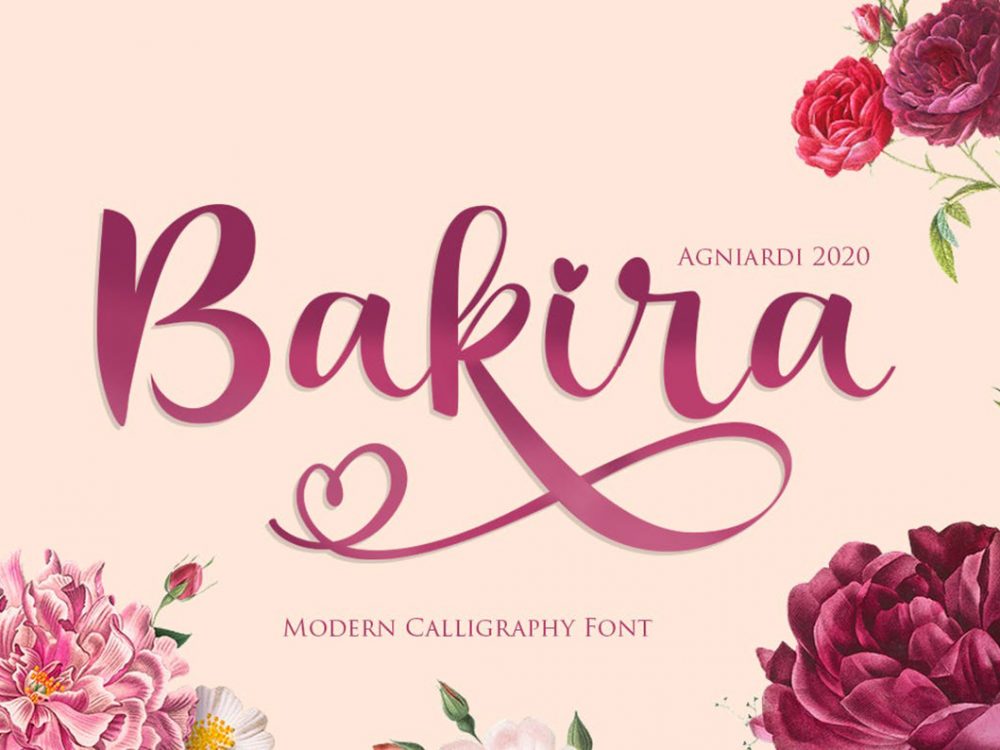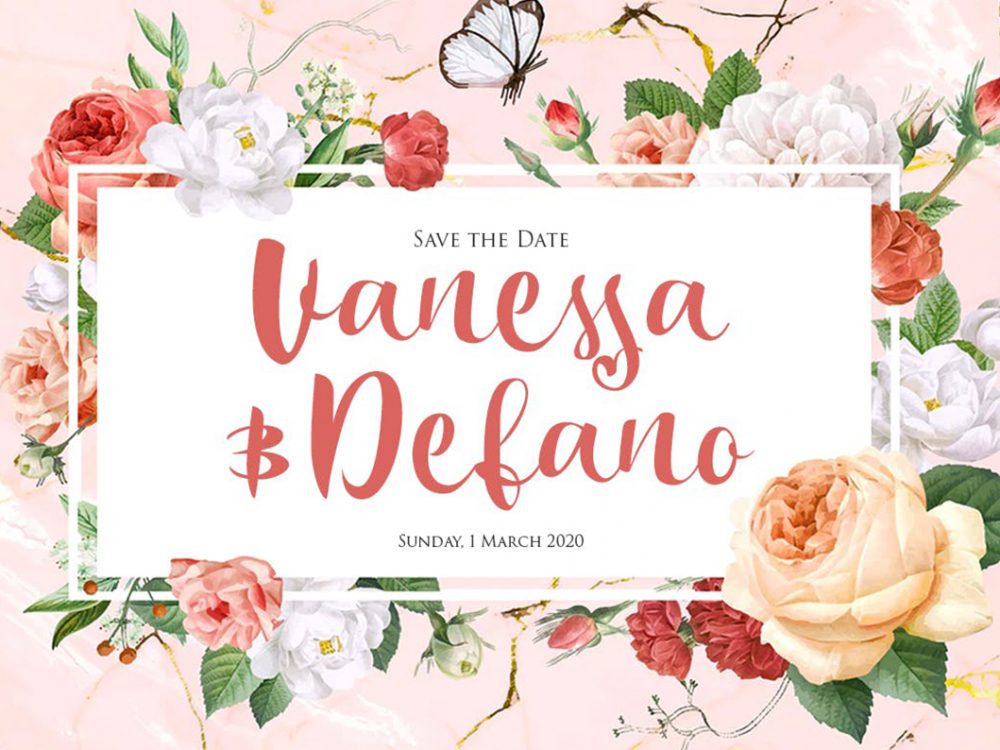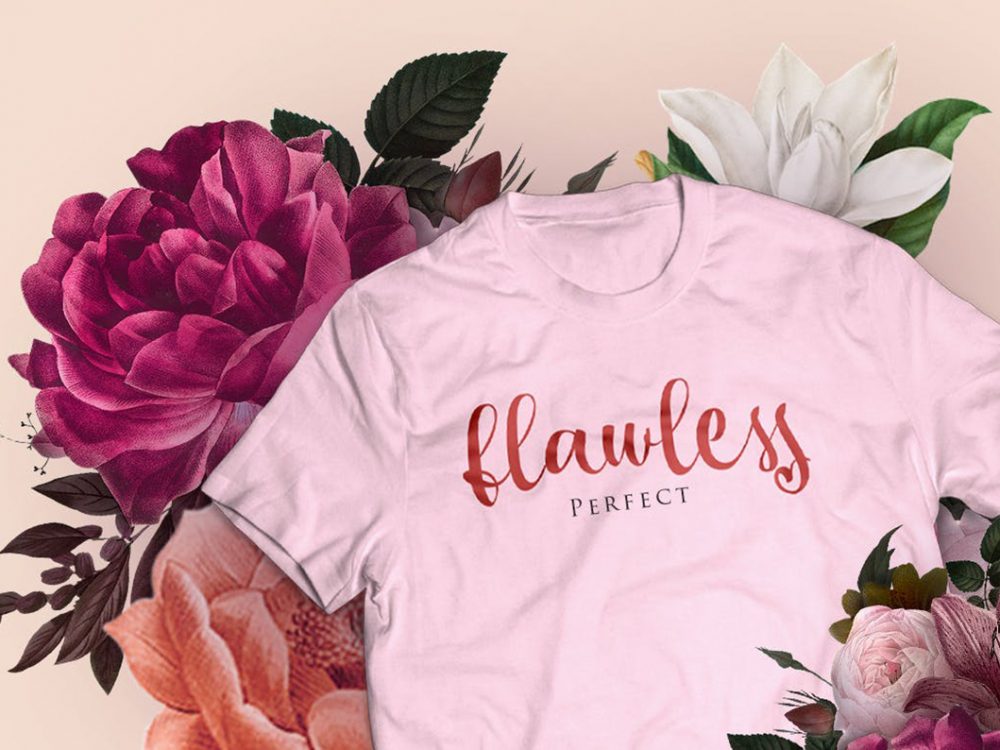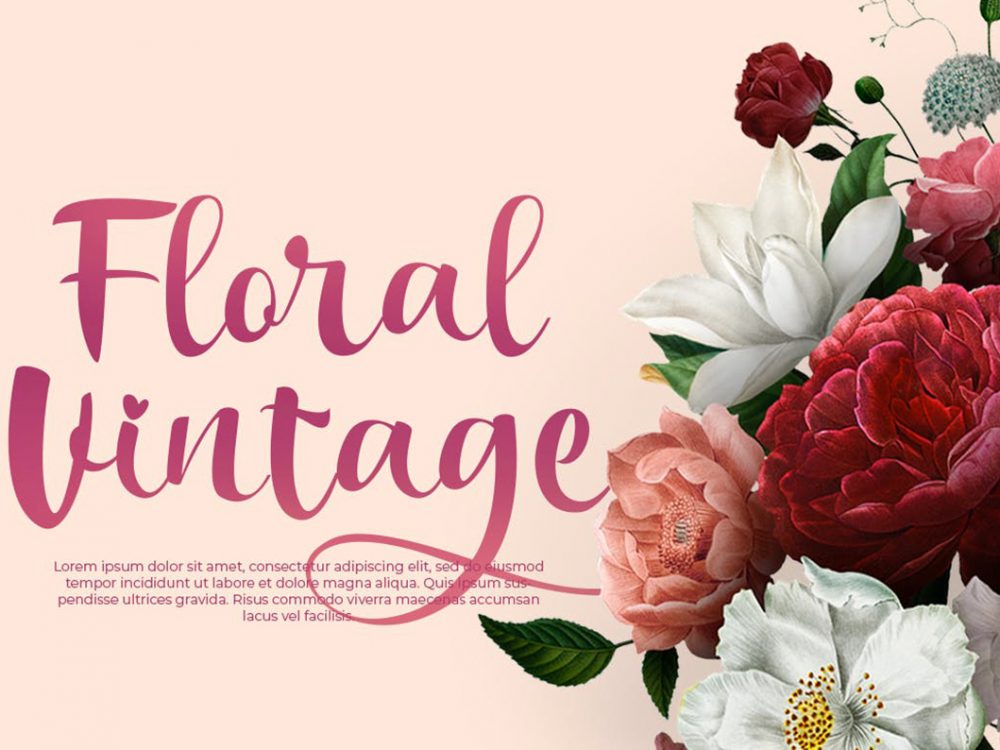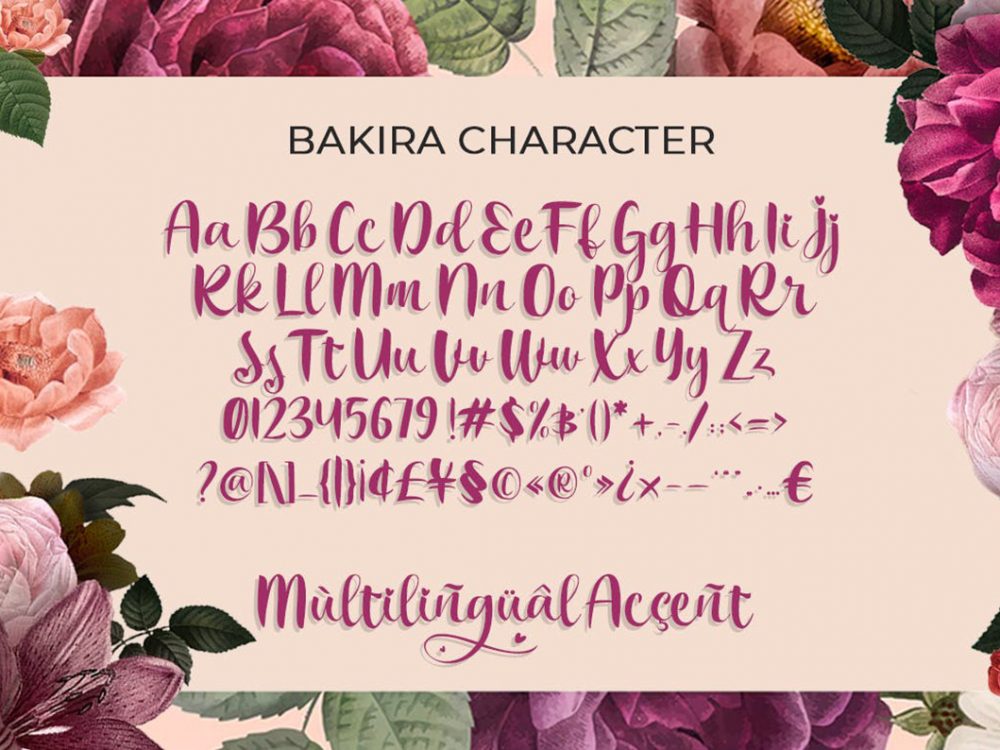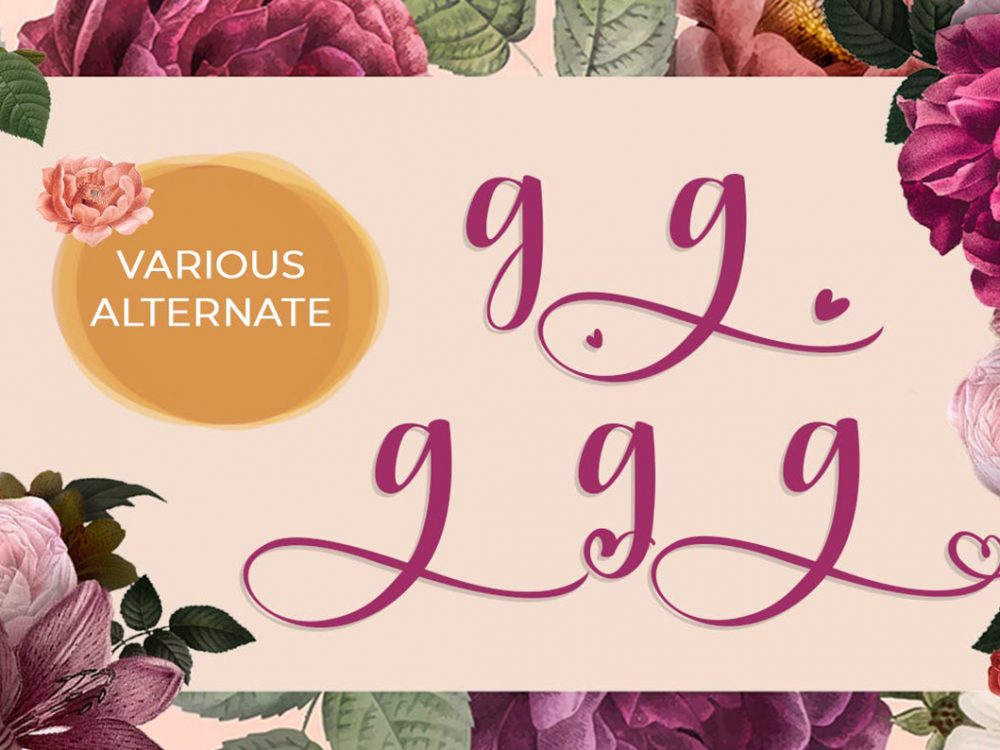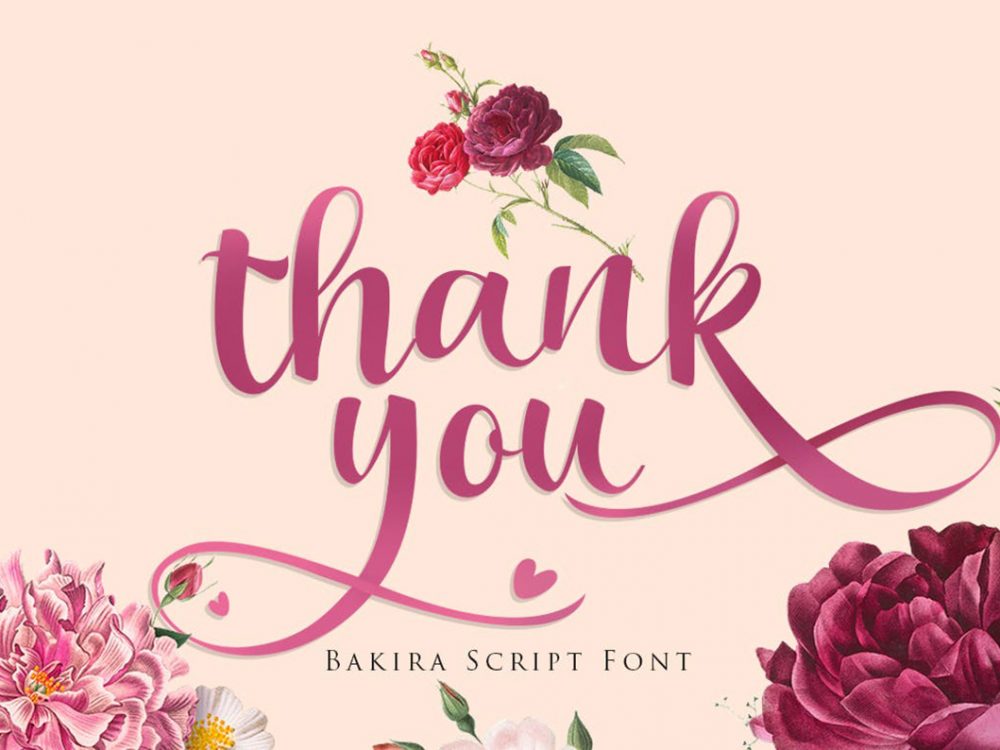
Free Demo Bakira Script Font
Free Demo Bakira Script Font is an interesting handwritten font that sets itself apart from other fonts with its elegant calligraphic style and sleek lines. This font is presented in a demo version and will help you create unique design projects and improve your professional level. Use this font to create memorable posters, wedding invitations, cards, branding, flyers, and more. Improve the quality of your design projects and raise your professional level using this font.